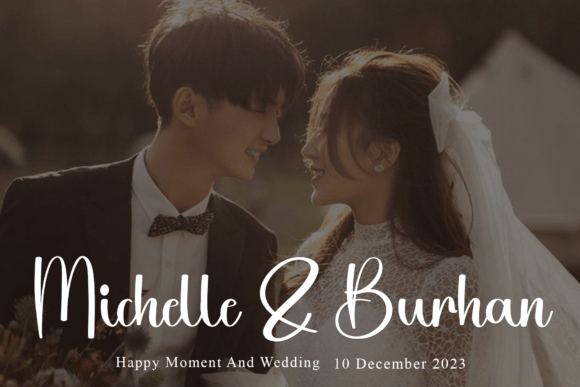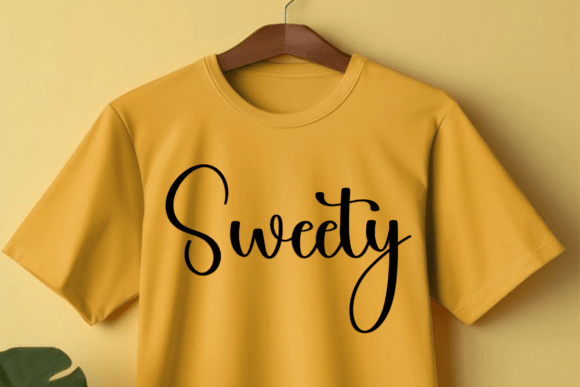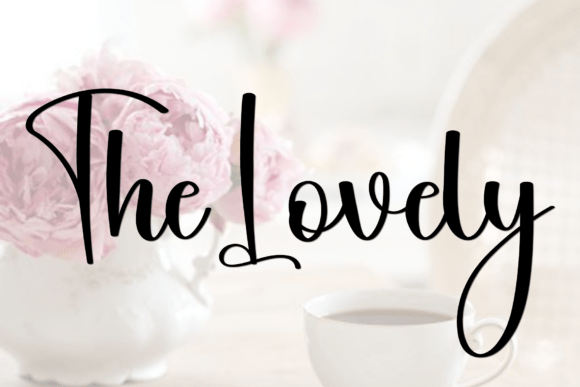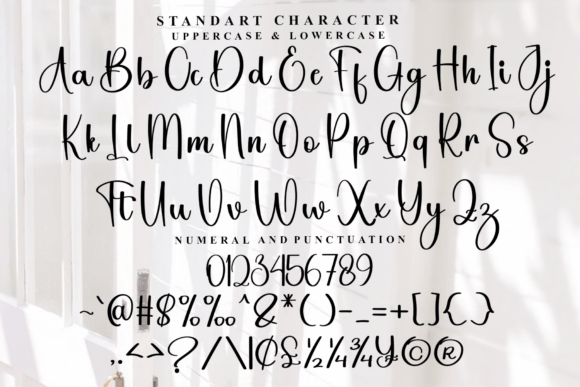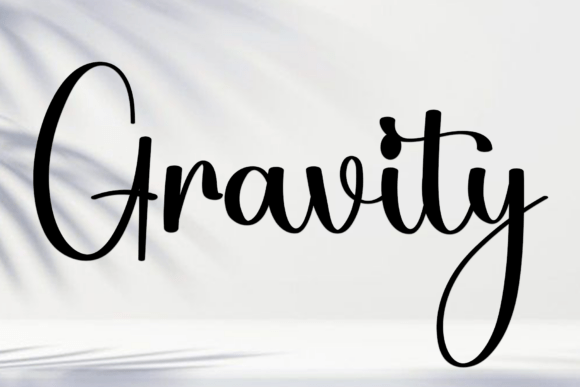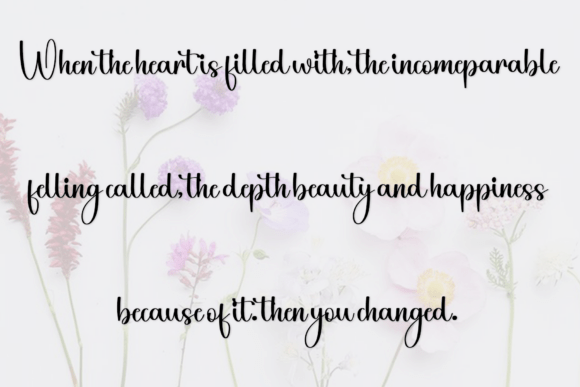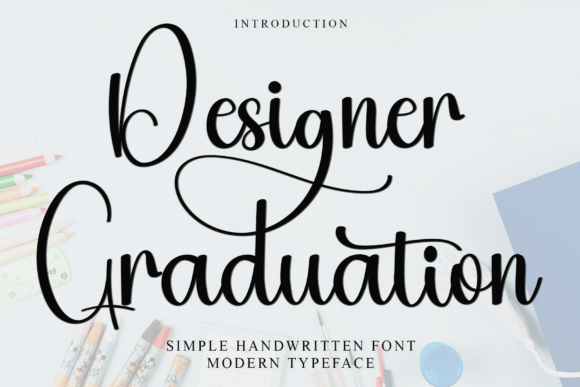
Elevate Your Designs with Designer Graduation Font
Are you looking for a font that adds a touch of elegance and sophistication to your designs? Look no further than the Designer Graduation Font. This stylish and incredibly elegant script font is perfect for designers and crafters who want to create stunning visual content. In this article, we’ll explore the features and benefits of Designer Graduation Font and how it can elevate your designs.
What is Designer Graduation Font?
Designer Graduation Font is a beautiful script font that is designed to give your designs a handwritten touch. It’s perfect for creating wedding invitations, thank you cards, quotes, greeting cards, logos, business cards, and every other design that needs a personal and elegant feel. The font is incredibly versatile and can be used for a wide range of design projects.
Key Features of Designer Graduation Font
- Elegant and Stylish: Designer Graduation Font is an elegant and stylish script font that adds a touch of sophistication to your designs.
- Handwritten Touch: The font has a handwritten touch that gives your designs a personal and unique feel.
- Versatile: Designer Graduation Font is incredibly versatile and can be used for a wide range of design projects, from wedding invitations to business cards.
- Easy to Read: The font is easy to read and understand, making it perfect for designs that require a clear and concise message.
Benefits of Using Designer Graduation Font
There are many benefits to using Designer Graduation Font in your designs. Here are a few:
- Adds Elegance: Designer Graduation Font adds a touch of elegance and sophistication to your designs, making them stand out from the crowd.
- Creates a Personal Touch: The font’s handwritten touch creates a personal and unique feel that resonates with your audience.
- Versatile: Designer Graduation Font is incredibly versatile and can be used for a wide range of design projects, saving you time and effort.
Here are a few tips and tricks to help you get the most out of Designer Graduation Font:
- Use it for Headings: Use Designer Graduation Font for headings and titles to add a touch of elegance and sophistication.
- Mix and Match: Mix and match Designer Graduation Font with other fonts to create a unique and visually appealing design.
- Experiment with Colors: Experiment with different colors to find the perfect combination that fits your design.
Designer Graduation Font is a stylish and incredibly elegant script font that adds a touch of sophistication to your designs. Its handwritten touch creates a personal and unique feel that resonates with your audience. With its versatility, ease of use, and elegance, Designer Graduation Font is perfect for designers and crafters who want to create stunning visual content. Whether you’re working on a wedding invitation, business card, or any other design project, Designer Graduation Font is sure to elevate your designs to the next level.